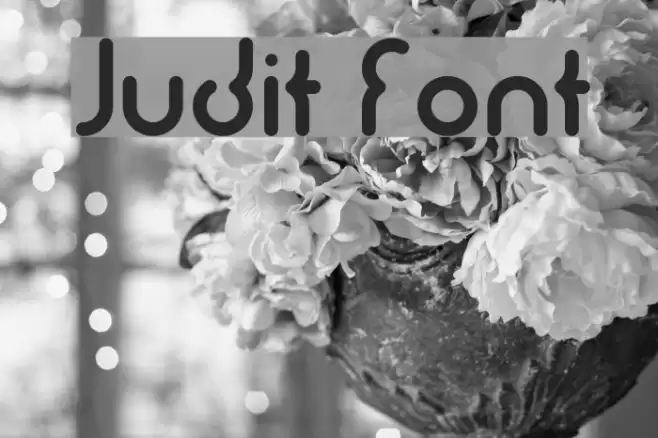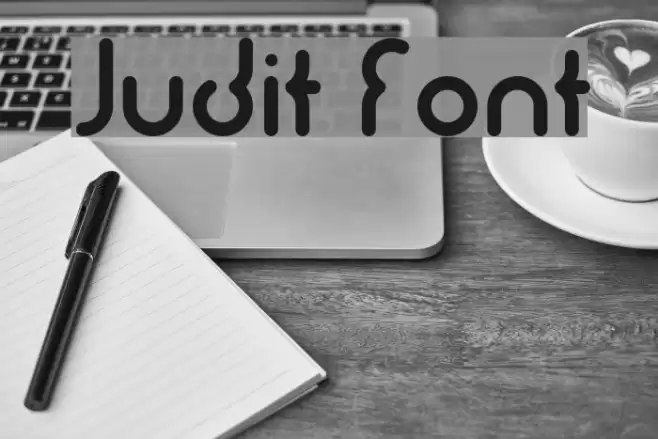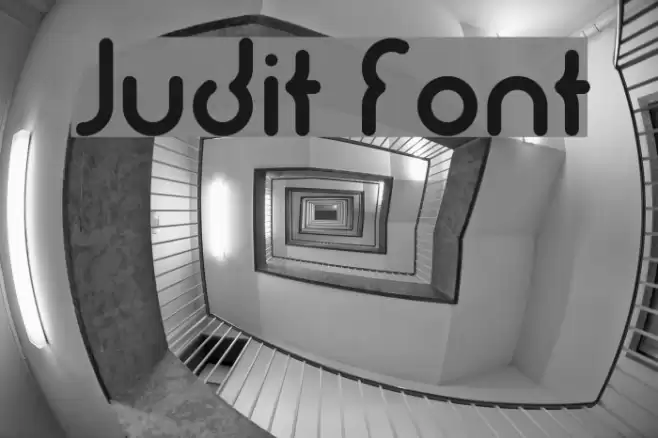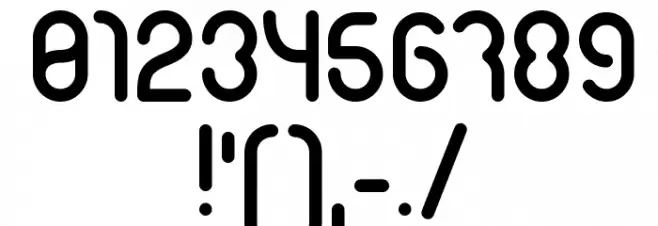
Judit Font
Judit Description
This font features a unique, rounded style with a modern and playful aesthetic. The characters are bold and have a consistent stroke width, giving them a uniform appearance. The rounded edges and smooth curves create a friendly and approachable look. The uppercase and lowercase letters maintain a cohesive design, with the lowercase letters mirroring the playful nature of the uppercase. The numbers and special characters follow the same design principles, ensuring consistency across all glyphs. This font is ideal for projects that require a modern yet approachable feel, such as branding, advertising, and digital media.
A modern, rounded font with a playful and bold aesthetic from Uncategorized fonts.
- Proposed Projects: Ideal for branding, advertising, digital media, and playful design projects.
- Use Case: Headlines, Logos, Branding